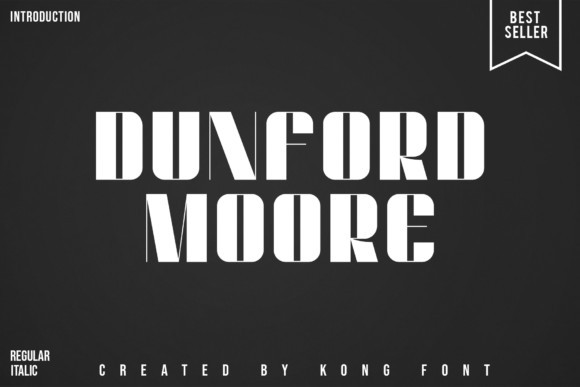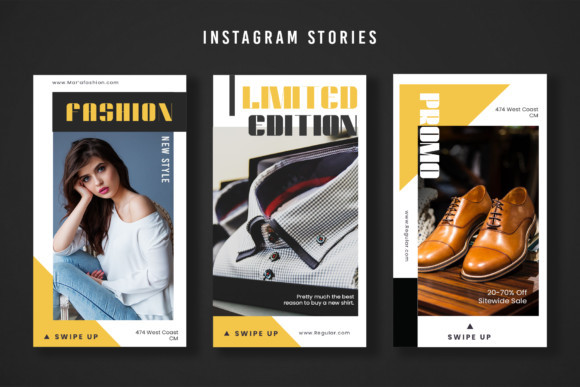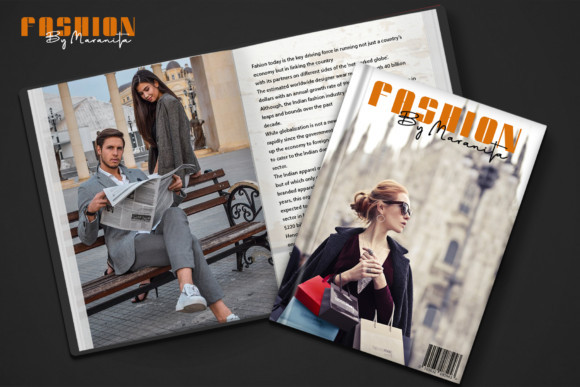
Dunford Moore Font
Dunford Moore is a sophisticated and strong sans serif font. This fantastic  font is best suited for headlines of all sizes, as well as for blocks of text that have both maximum and minimum variations. Whether it’s for web, print, moving images or anything else – Dunford Moore will look spectacular.